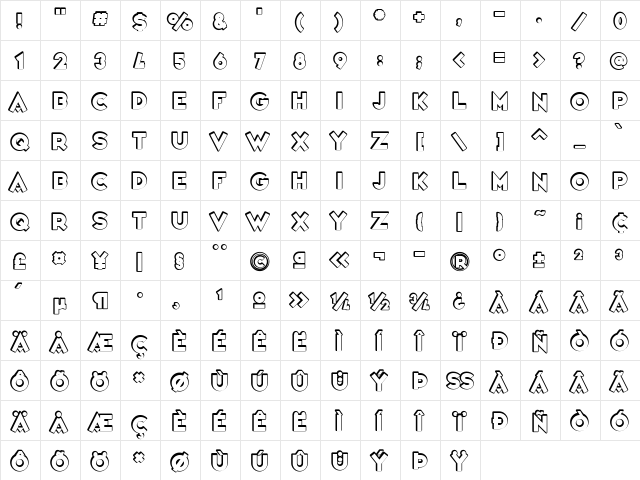
Variet頓cala Regular
| Foundry | Peter Wiegel |
| Designer | Peter Wiegel |
Design Context for Variet頓cala Typeface
Variet頓cala is a composed and adaptable typeface that performs quietly and consistently across a wide range of design contexts.